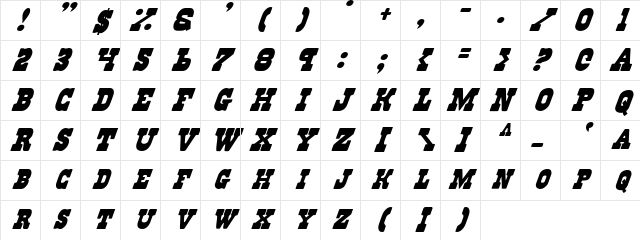
Regulators Italic Italic
Regulators Italic Family
Design Context for Regulators Italic
Regulators Italic is a composed and adaptable typeface that performs quietly and consistently across a wide range of design contexts. The slanted form adds forward momentum and visual energy.
Pro Tip: Use Regulators Italic for emphasis, pull quotes, and subheadings where its slanted energy can add rhythm to the layout.